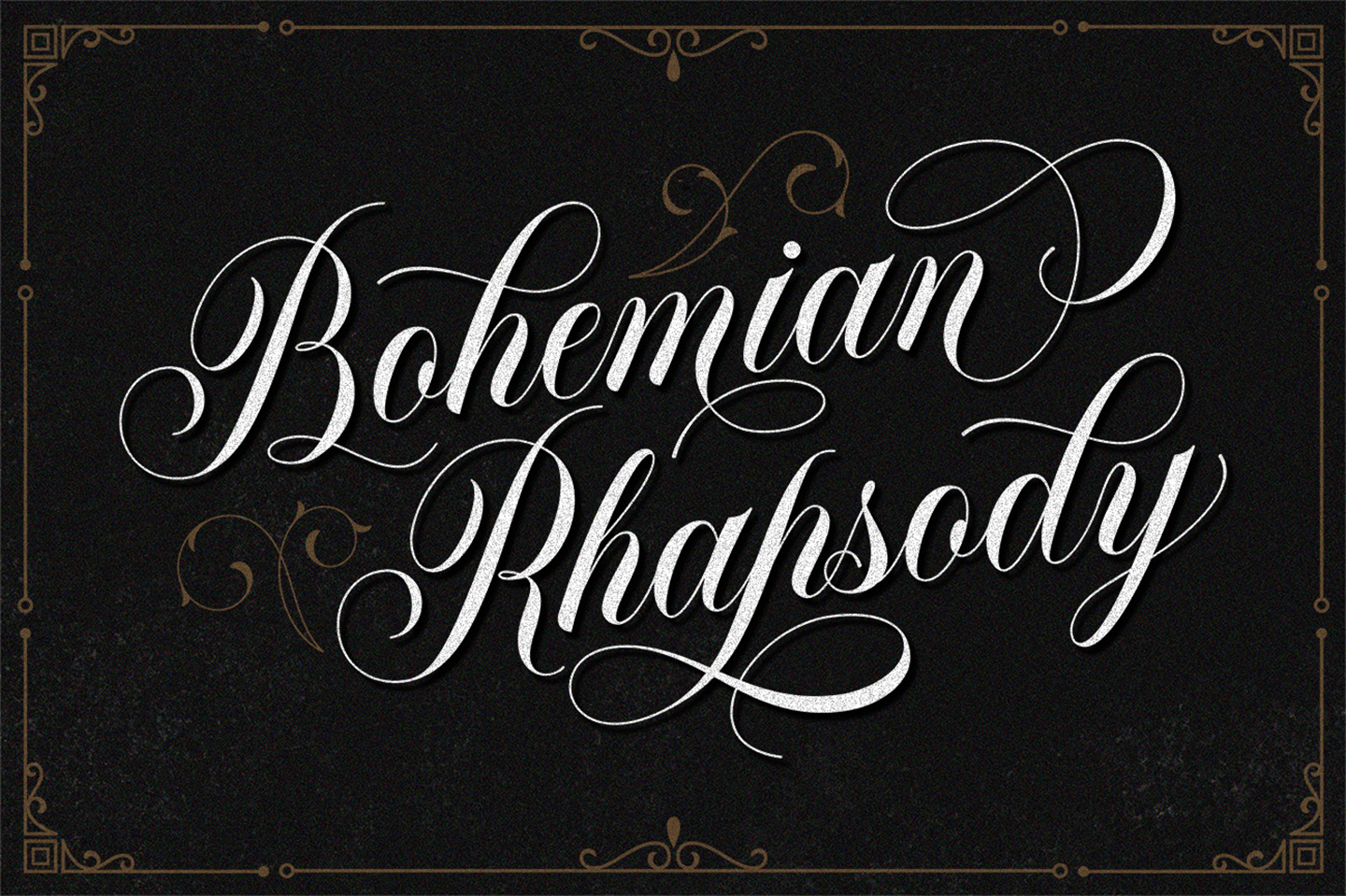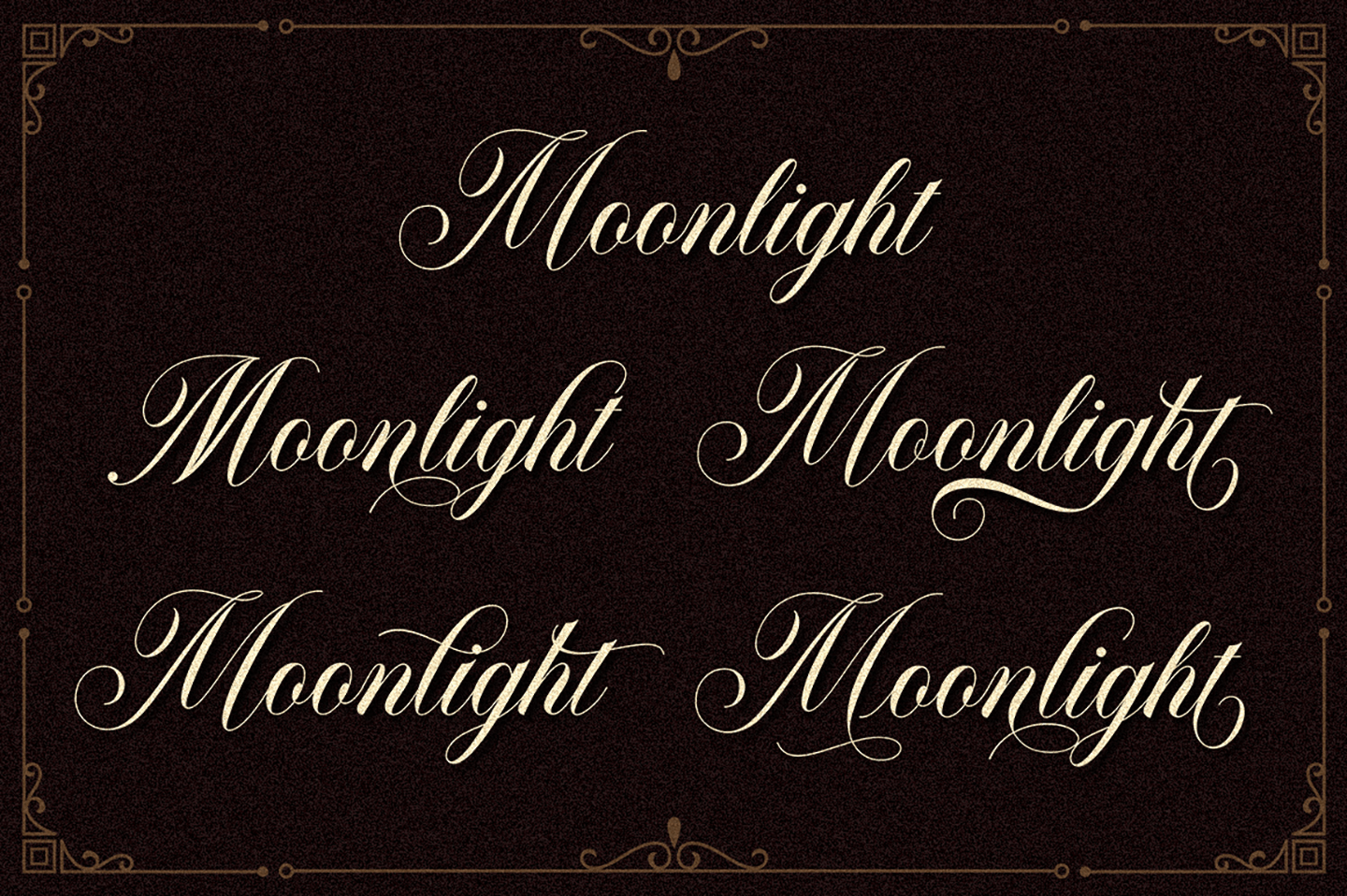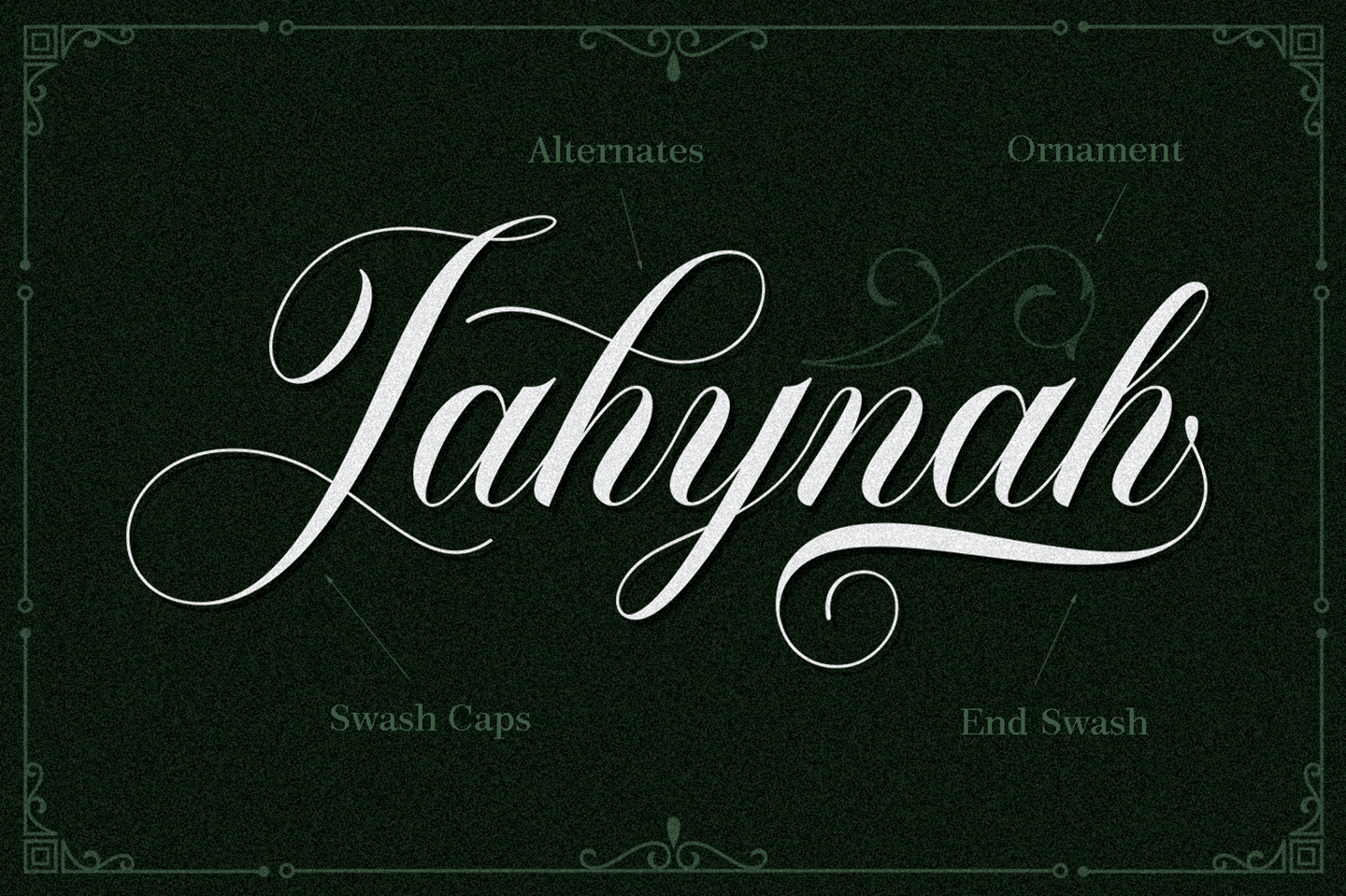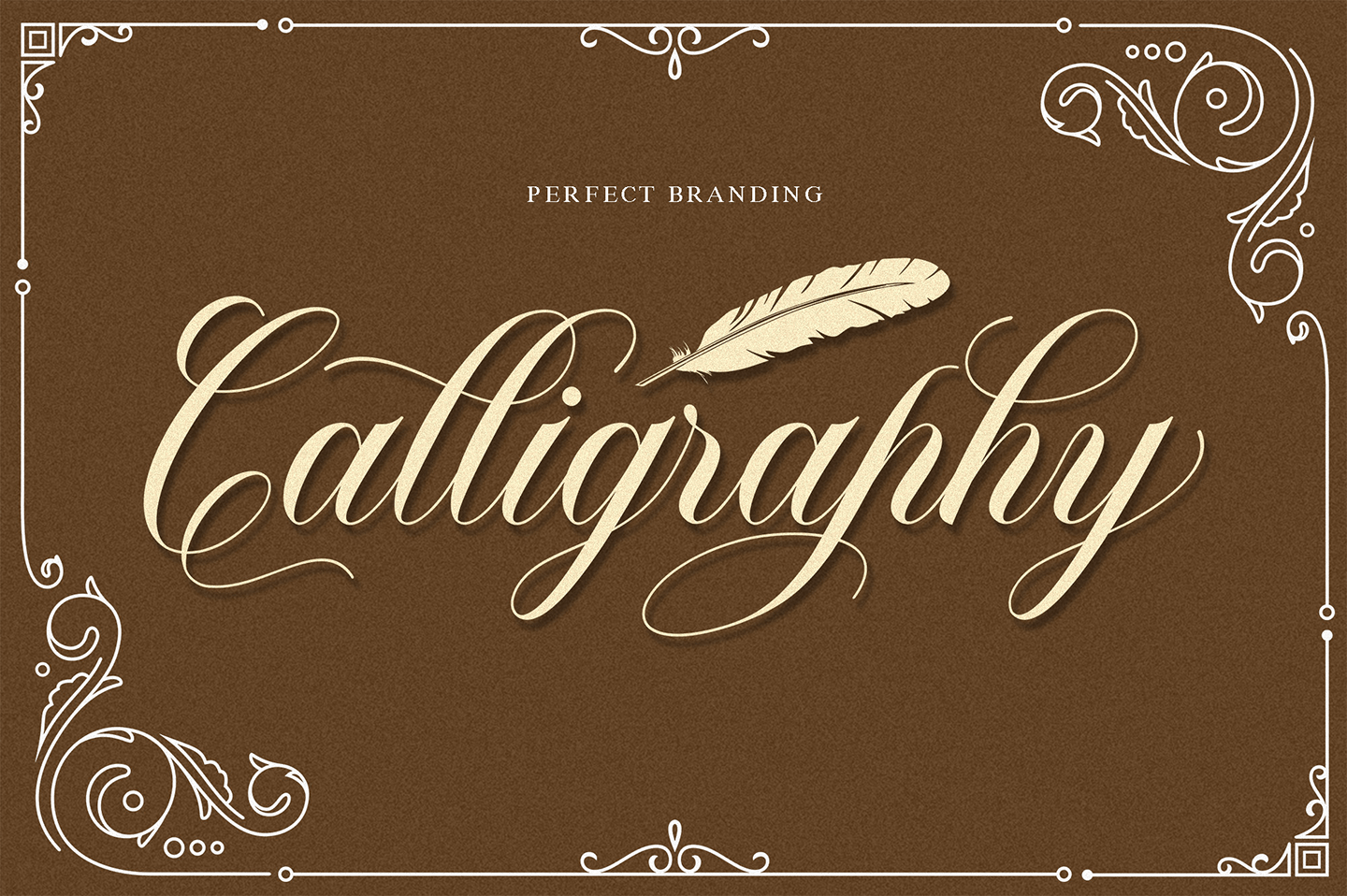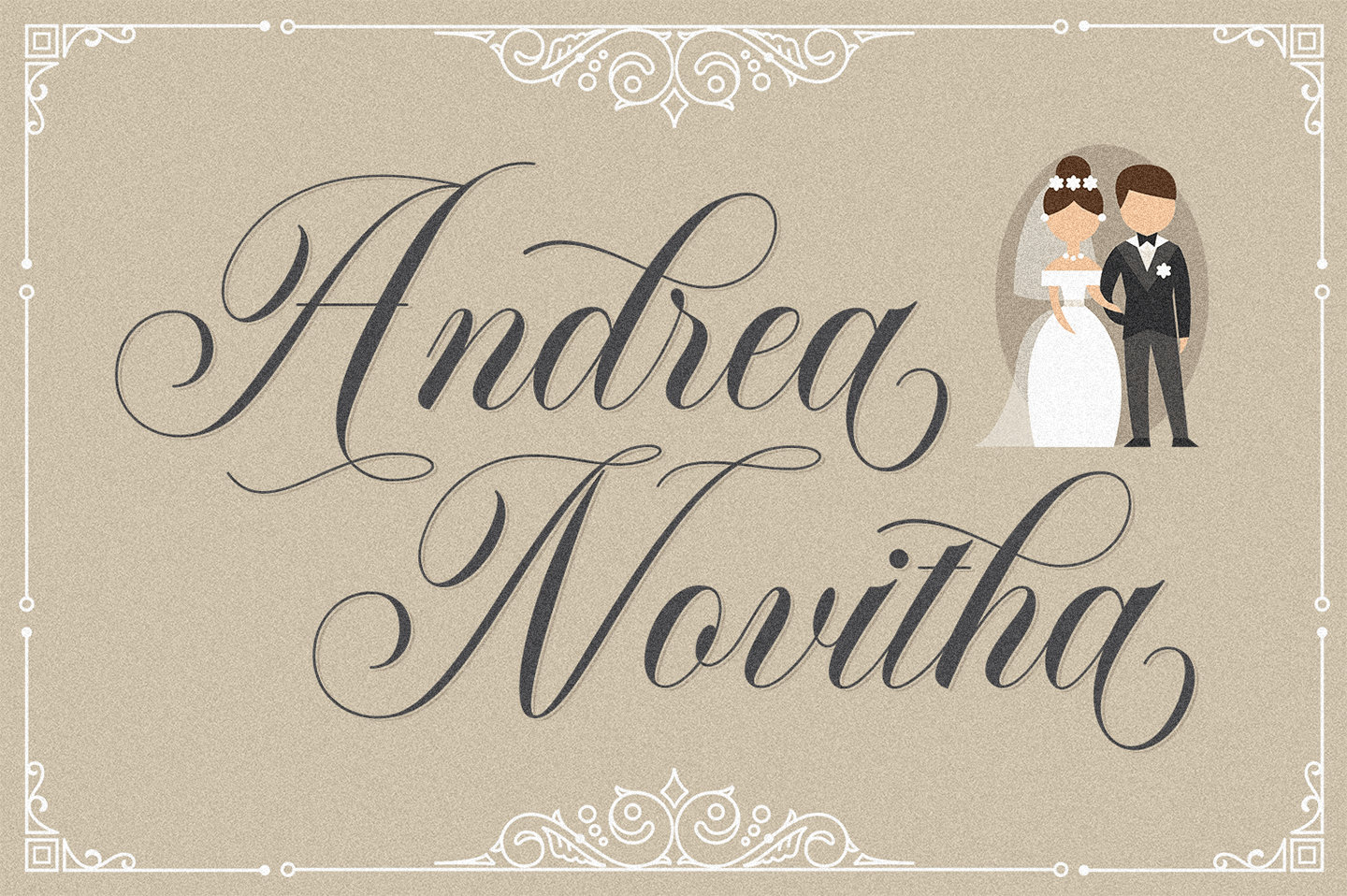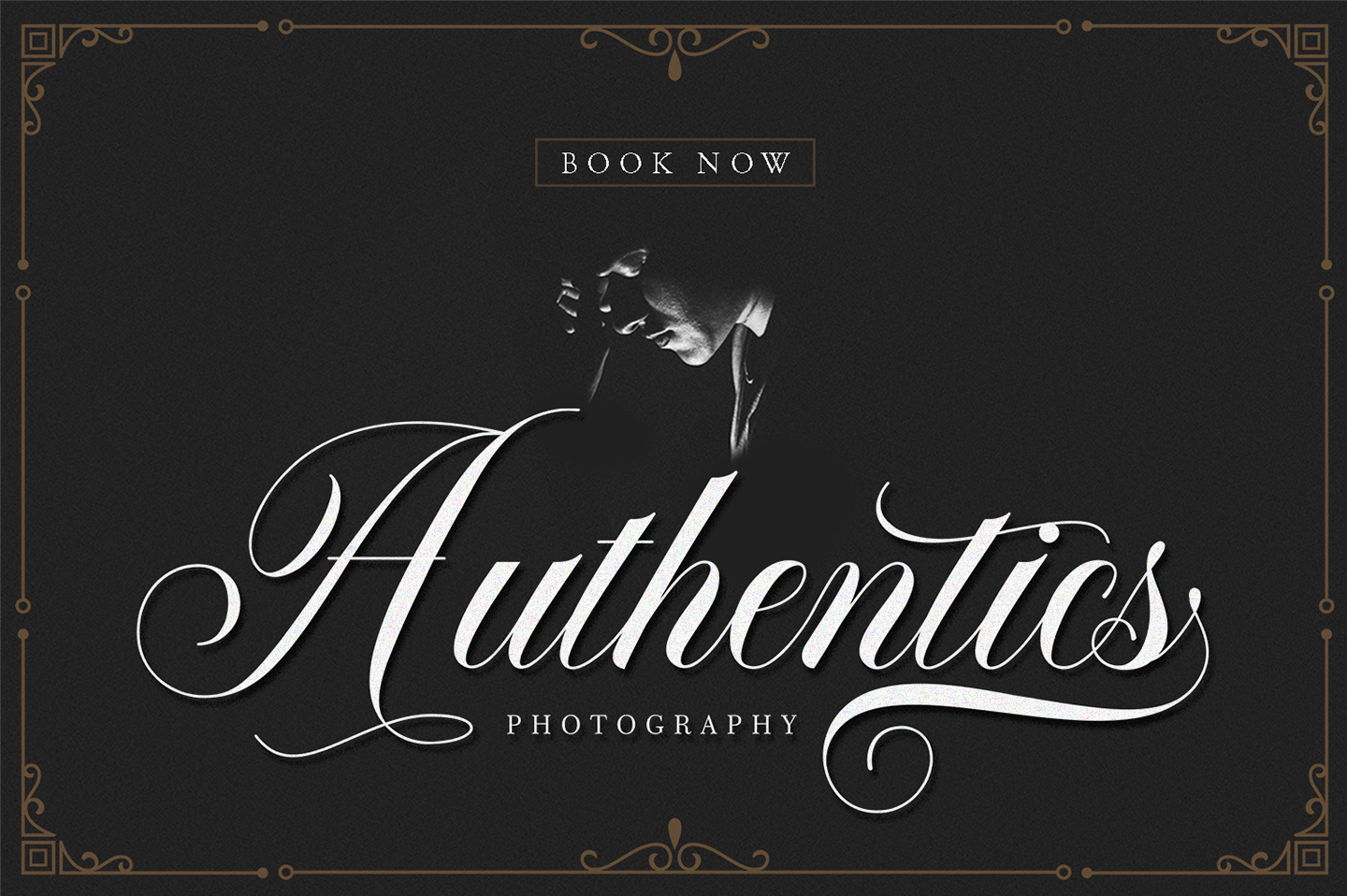
About Bellanaisa
Bellanaisa Script – a new fresh & modern calligraphy style, decorative characters and a dancing baseline! A mixture of copperplate calligraphy with hand lettering style. So beautiful and perfect to be applied in any type of formal pieces such invitations,…